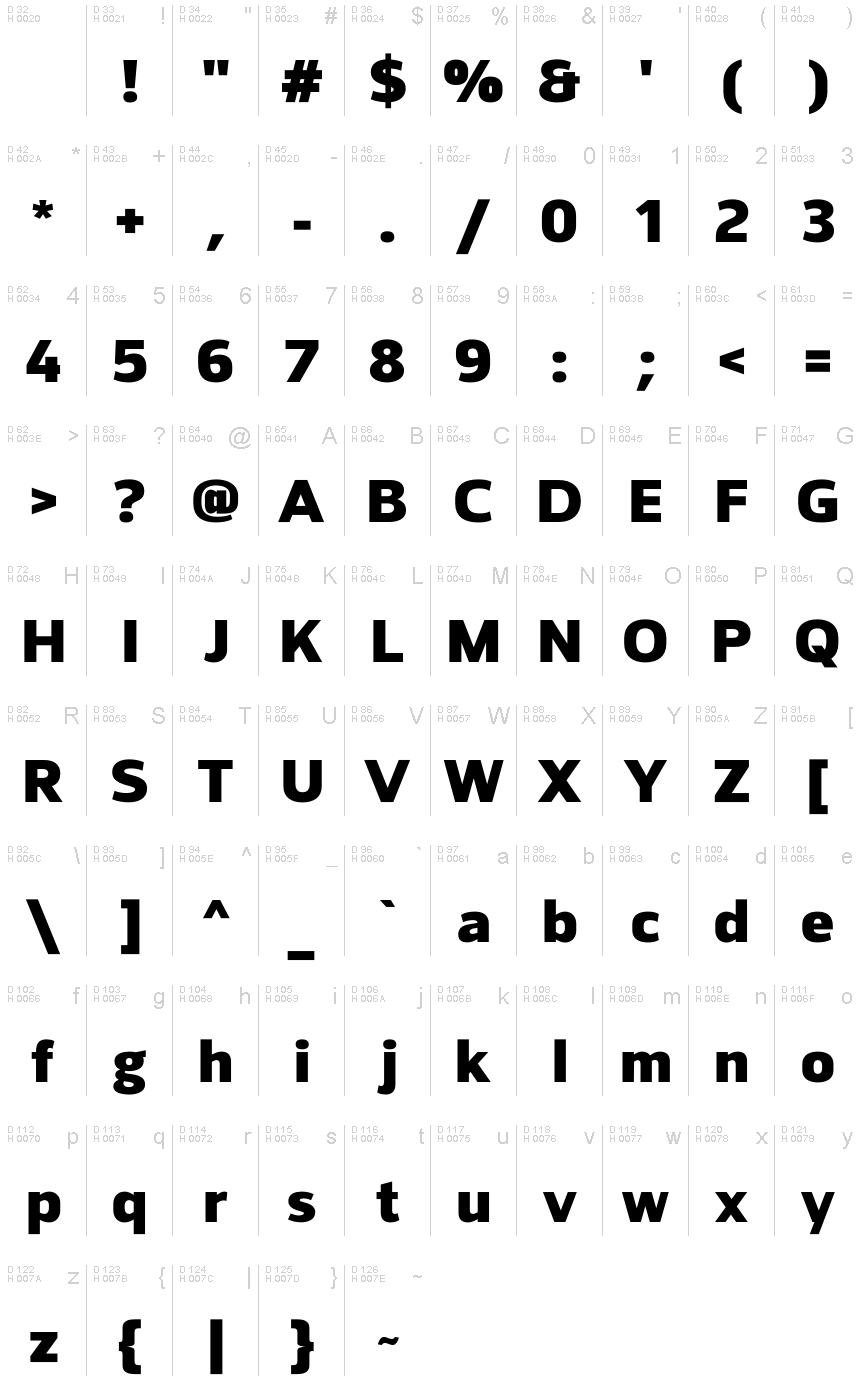
LT Streetway Neue Black
LT Streetway Neue Black, a striking sans serif font crafted by LyonsType, commands attention with its bold and dynamic presence. Exuding a sense of urban sophistication, this typeface boasts clean lines, sharp edges, and a geometric aesthetic that effortlessly blends tradition and modernity. Its robust, yet refined character lends itself to a wide range of design applications, from editorial layouts to branding and packaging.
Versatile and impactful, LT Streetway Neue Black is a versatile choice for designers seeking to infuse their projects with a bold, distinctive typographic statement. Its strong personality and legibility make it an ideal selection for headings, titles, and attention-grabbing elements, adding a touch of contemporary flair to any visual narrative.